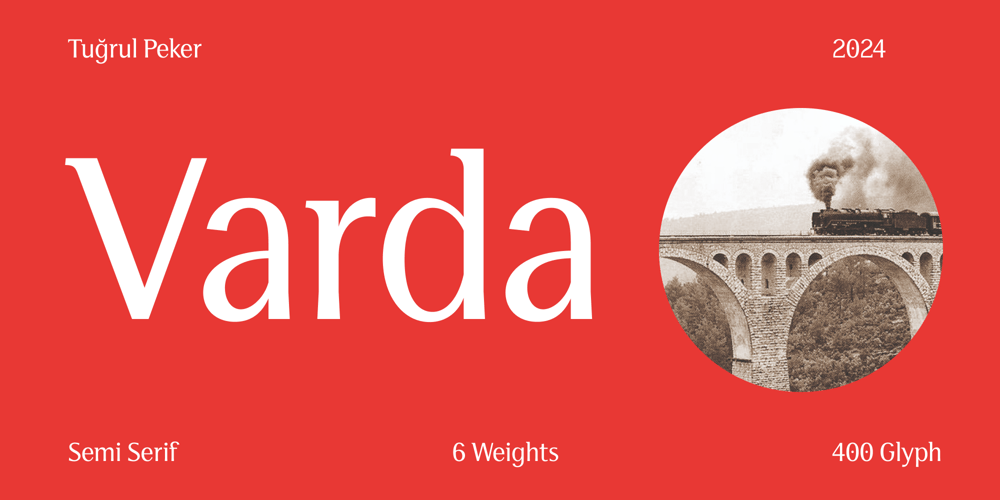
Varda Semi Serif Font Family was designed by Tugrul Peker and published by Tugrul Peker. Varda Semi Serif contains 6 styles and family package options. Varda Semi Serif takes its name from the Varda Bridge built by the German engineers as part of the Baghdad Railway (Haydarpaşa Terminal, Istanbul-Baghdad) in 1912. It was also initially inspired by Otl Aicher’s Rotis Semi Serif. In this context, the typeface was designed as an intermediate Semi Serif. The contrasting expansions on the legs, like the piers of the bridge, form the main element of the design.Its primary design purpose is display uses such as museum and street wayfindings and exhibitions wall graphics.